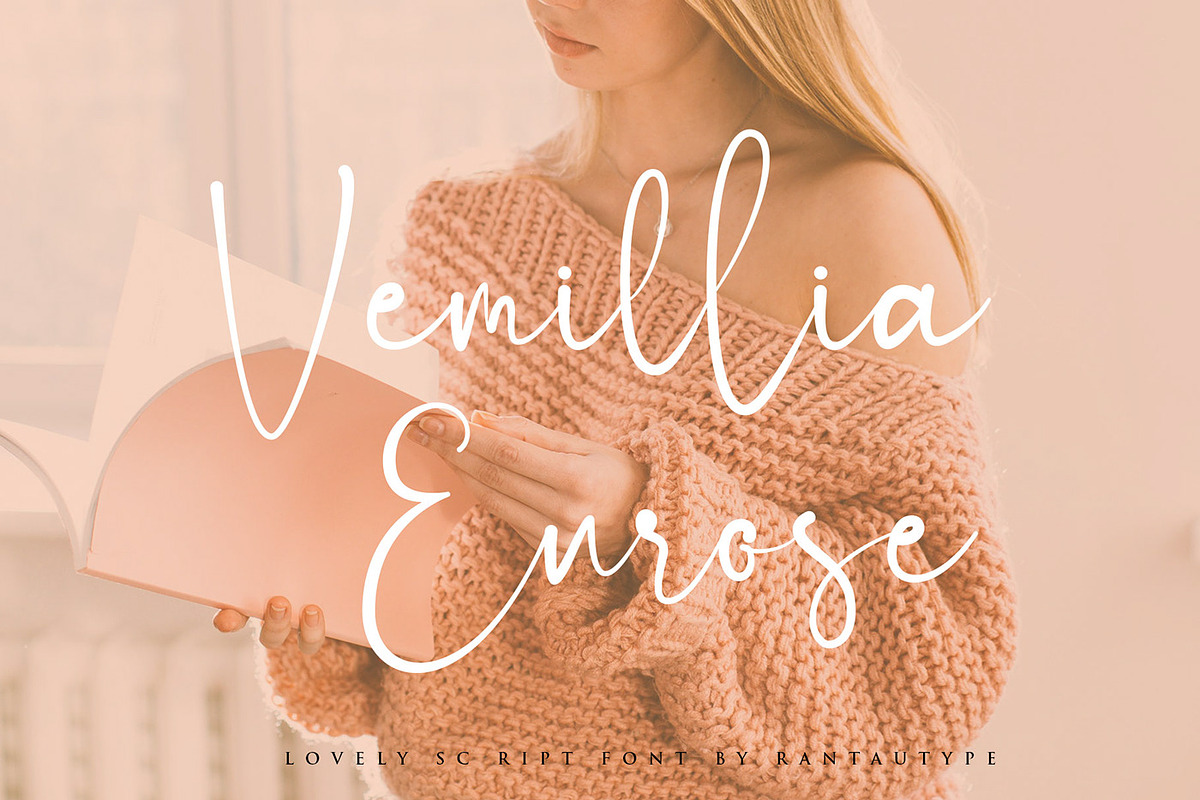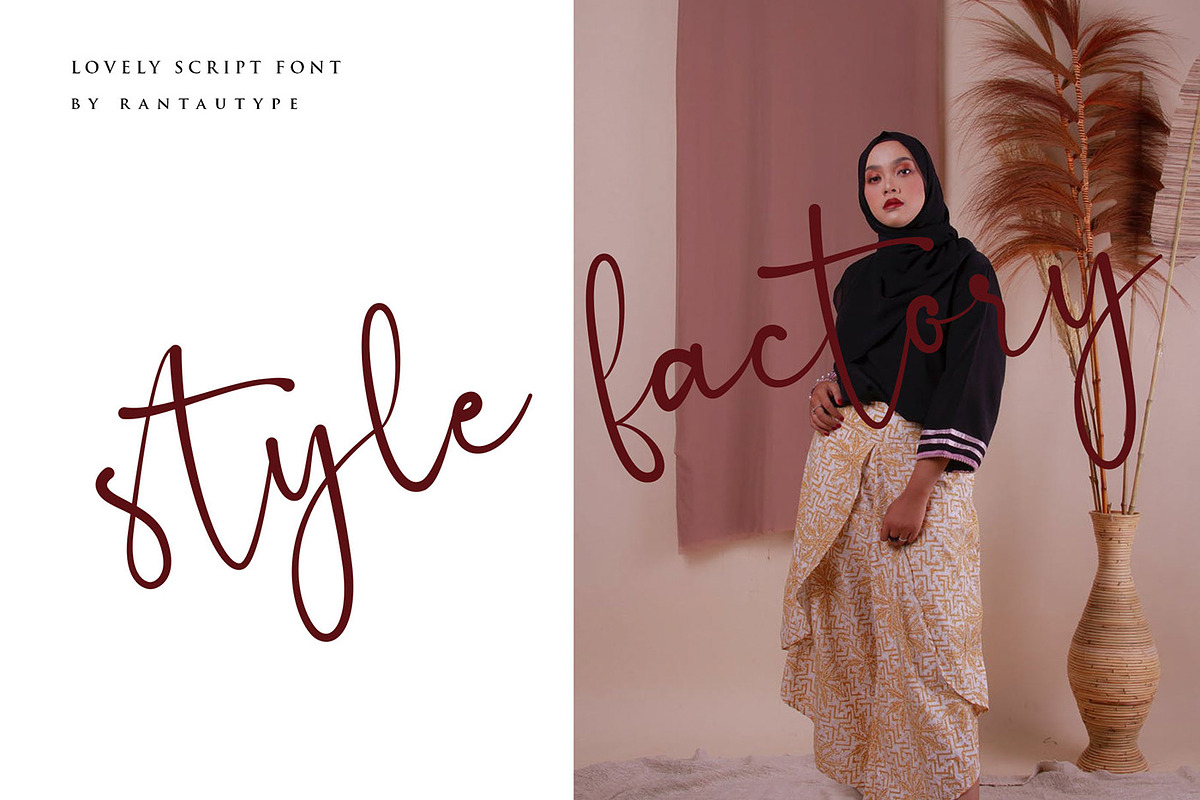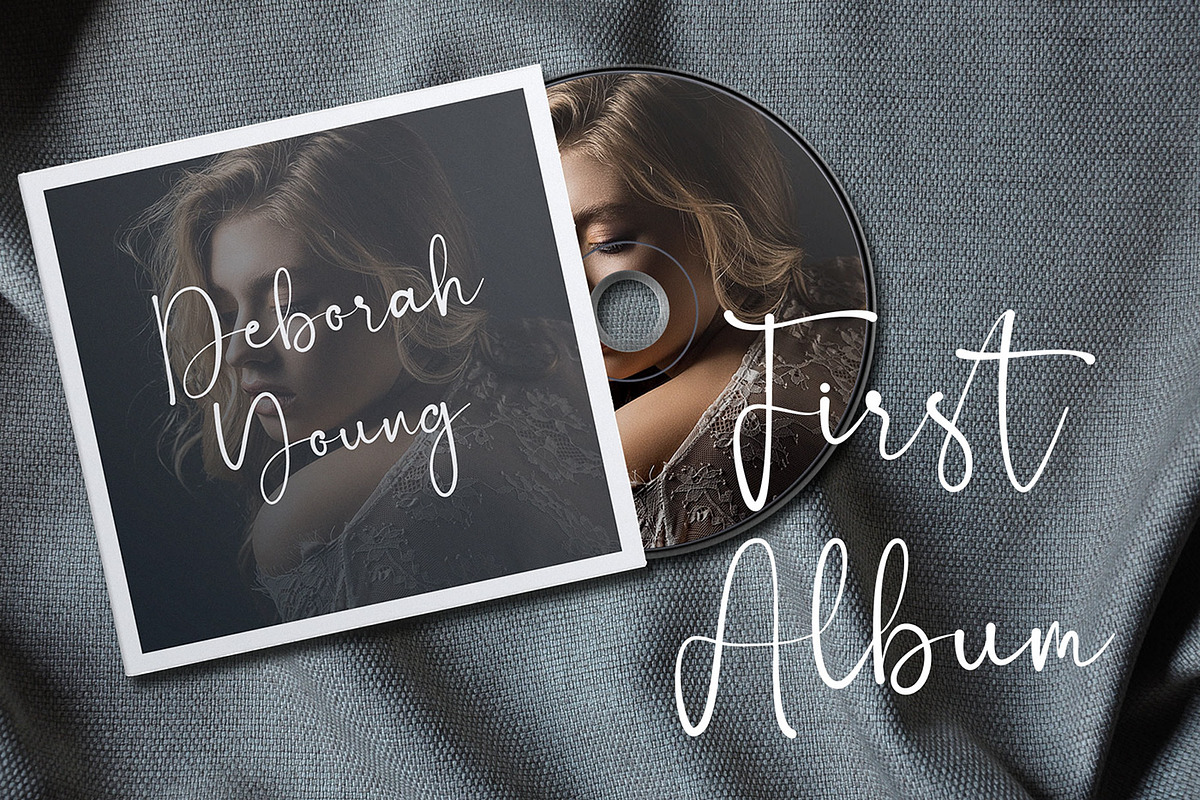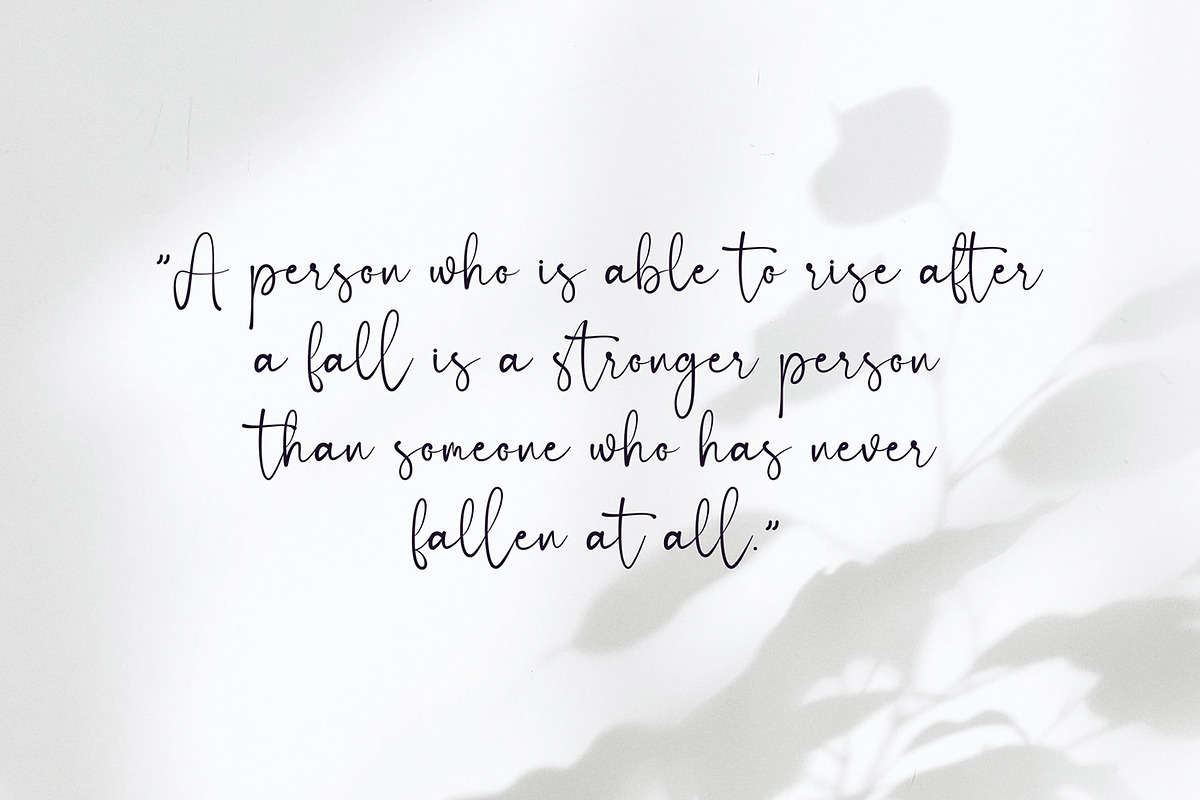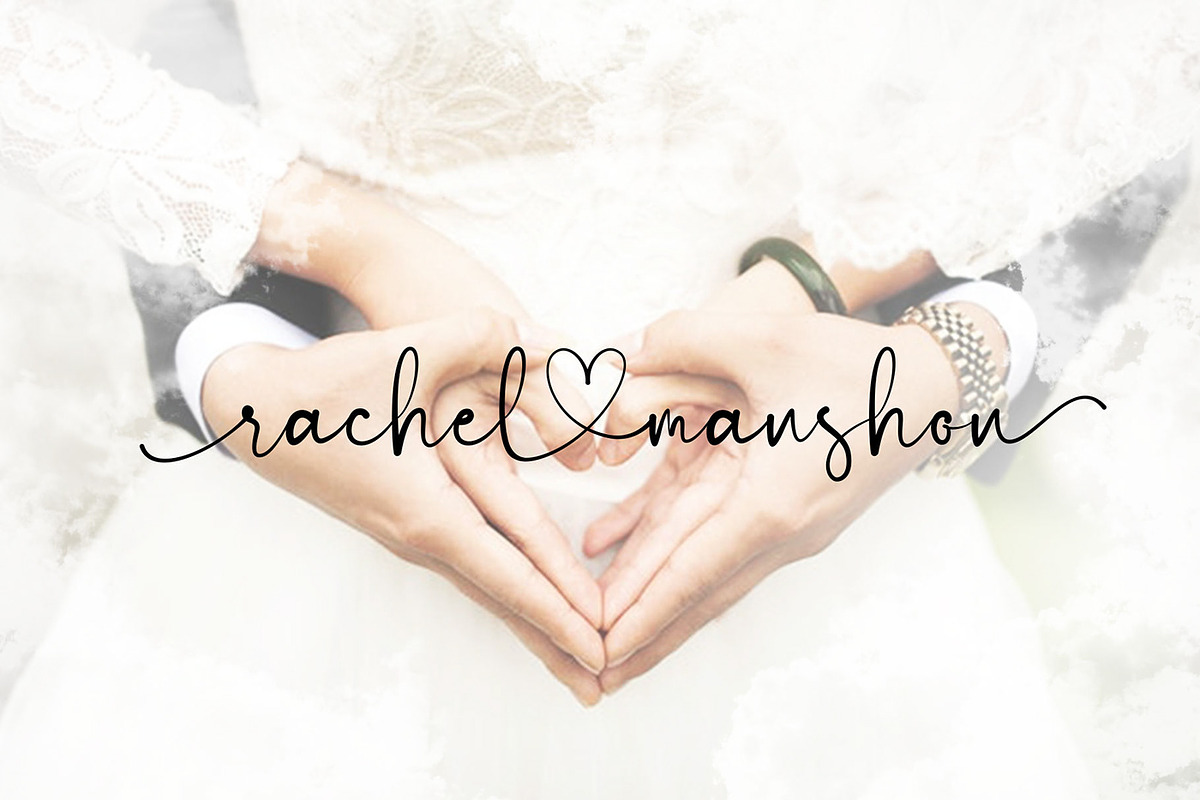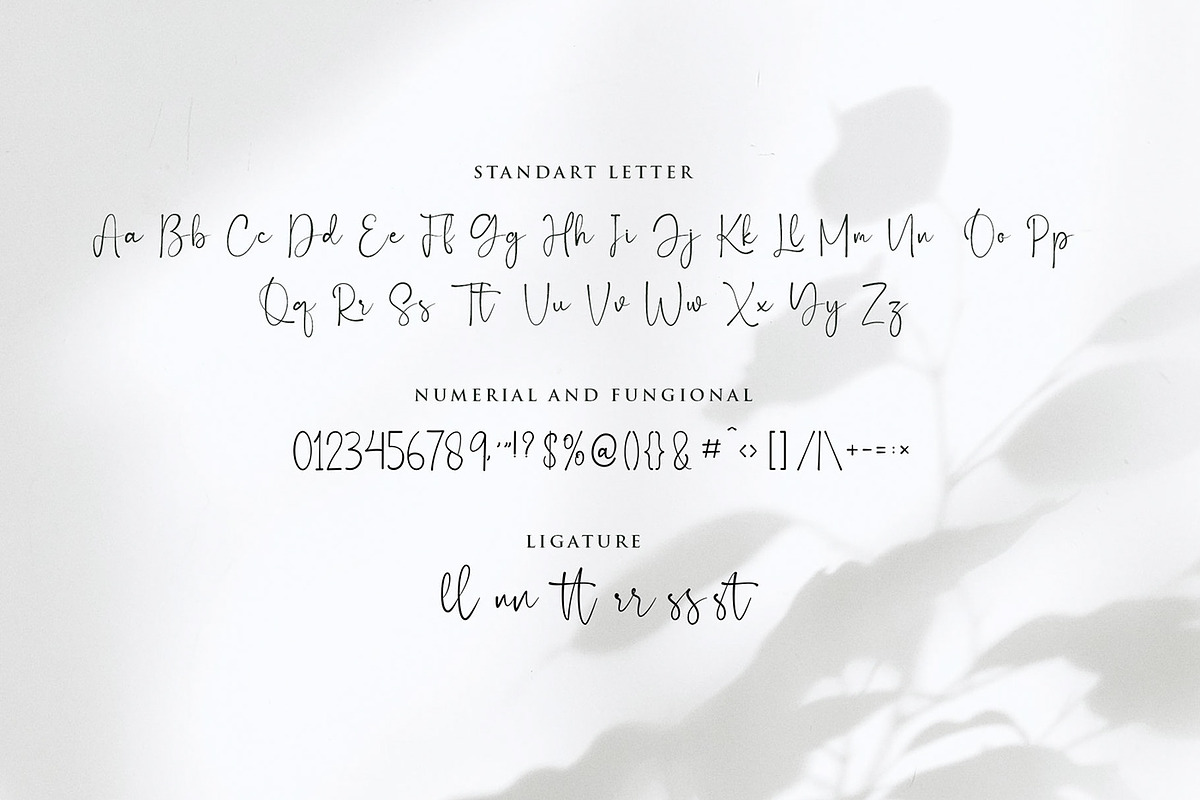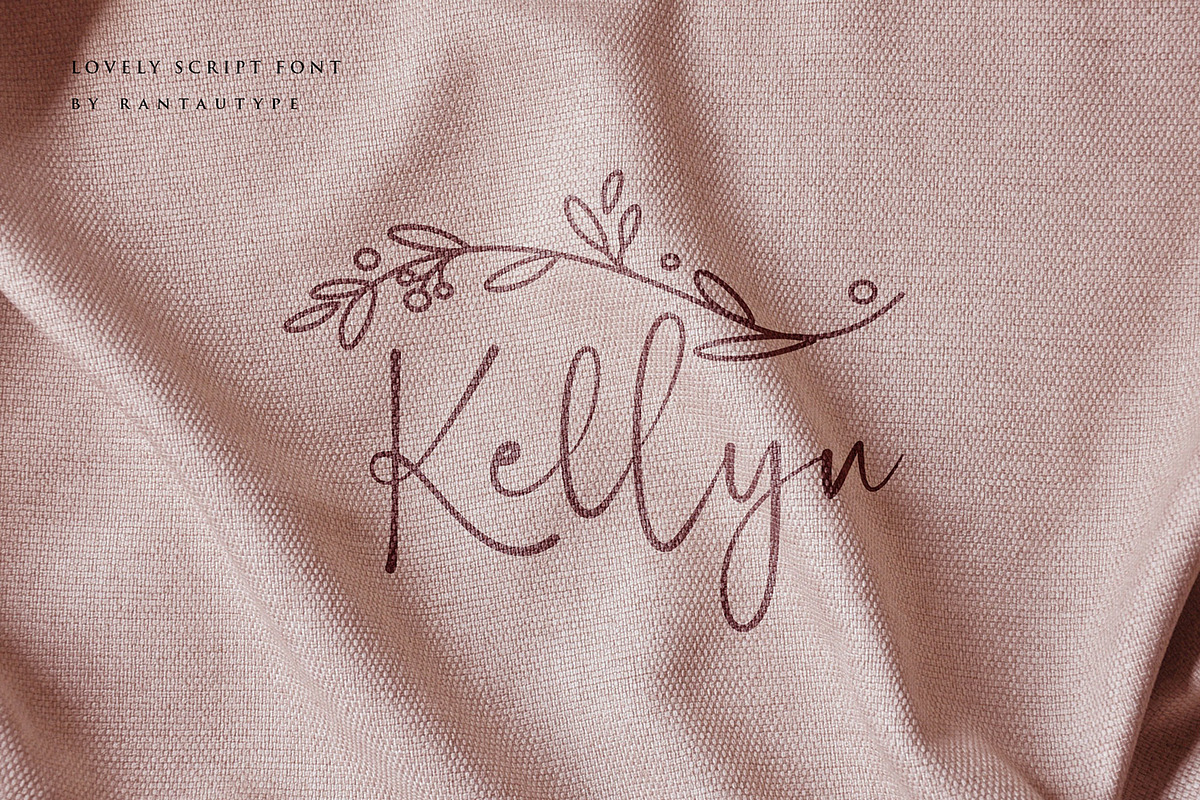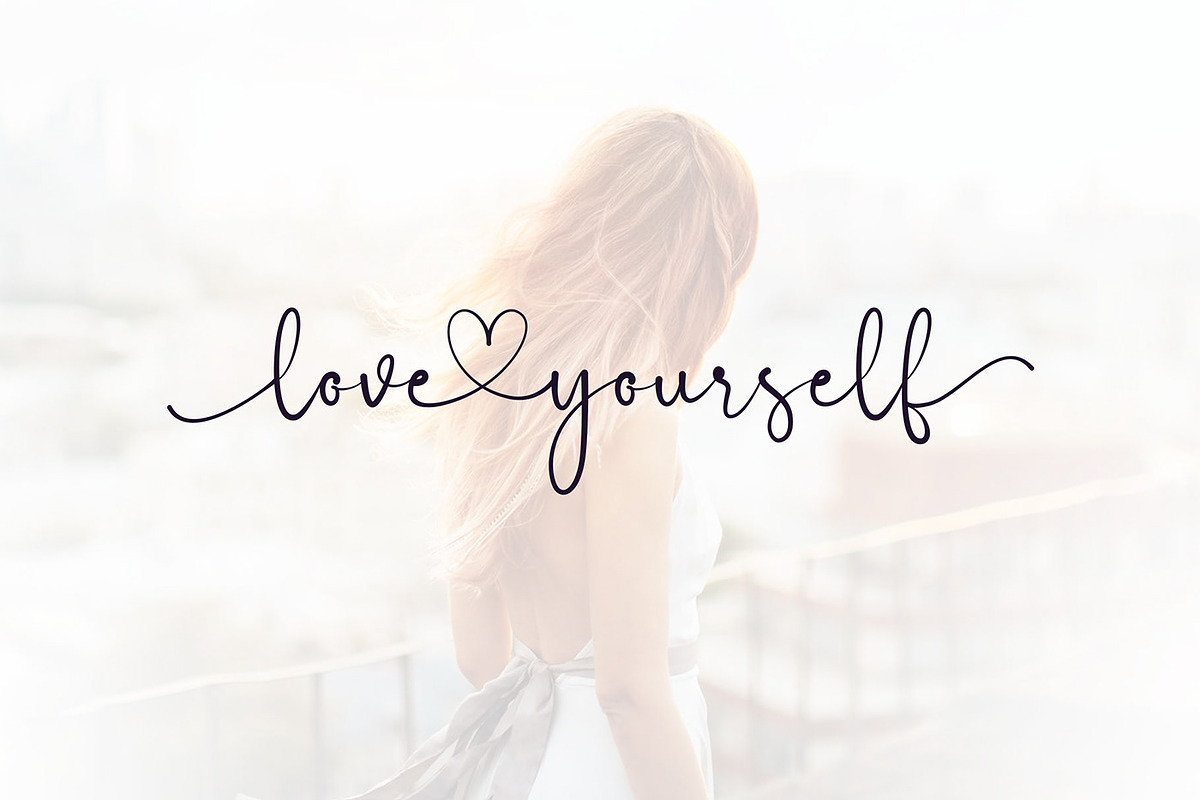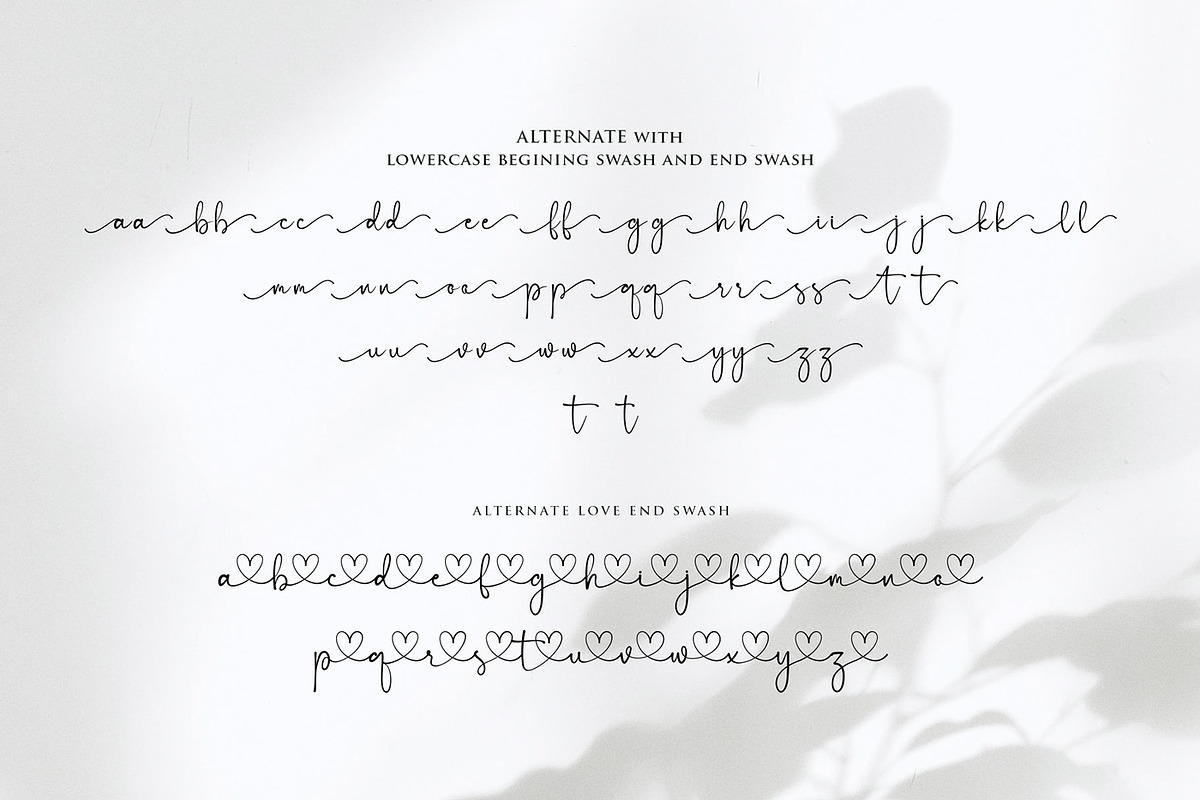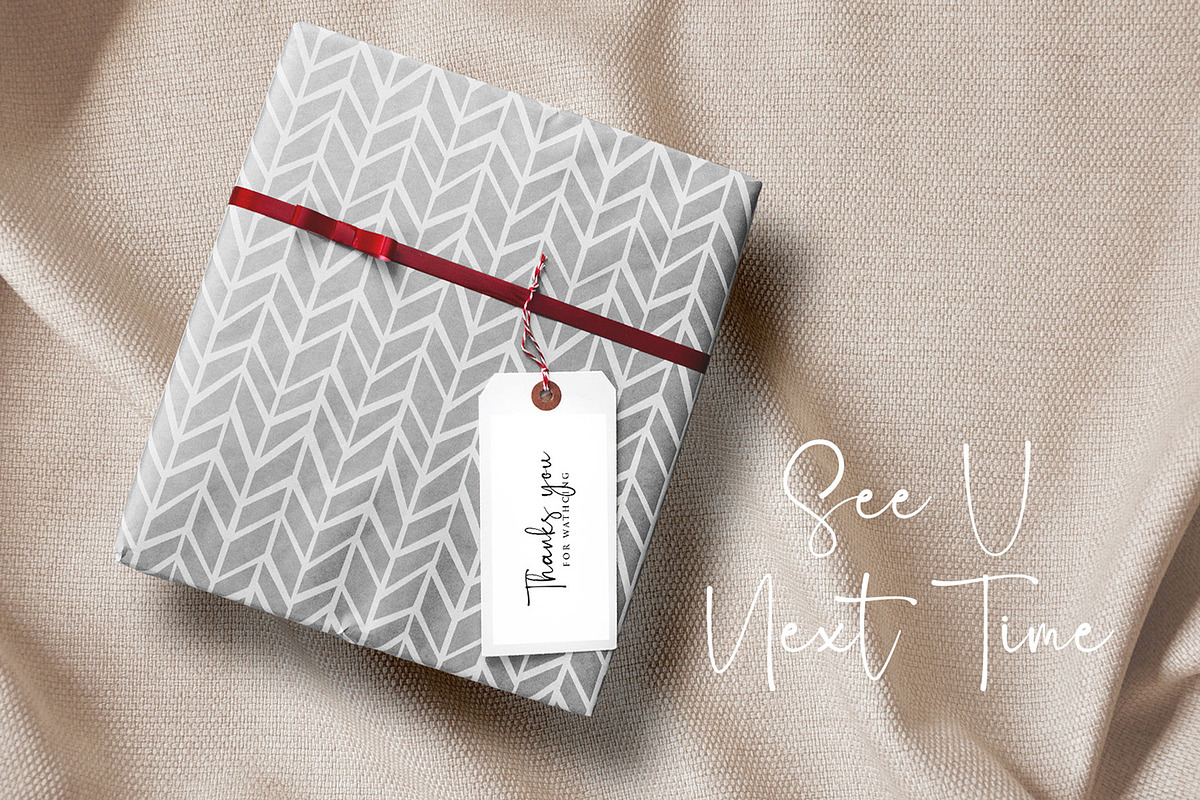
Hello Famous - Handwritten Font
Hi Ladies and Gentleman ! Proudly present lovely script font Hello Famous. This font is modern script style which can be interpreted professional. we keep this font looks modern, readable, stylish, girly, feminine, catchy and easy to use.
Hello Famous is the great choice for watermark on photography, signature or signature logo design, quotes, album cover, magazine, business card and many other design project. Hello Famous here to make your work to high level!!!
- Standar letter A-Z and a-z
- Alternate with begin.swash and end swash and love end swash
- ligature